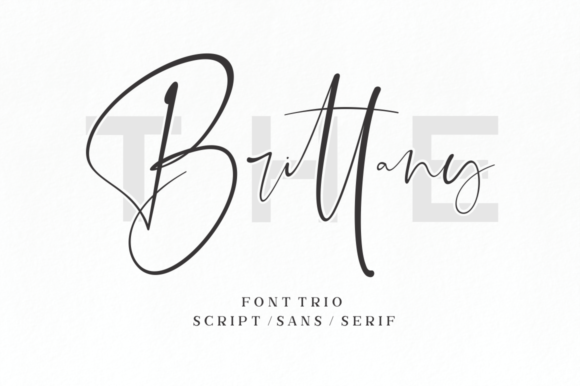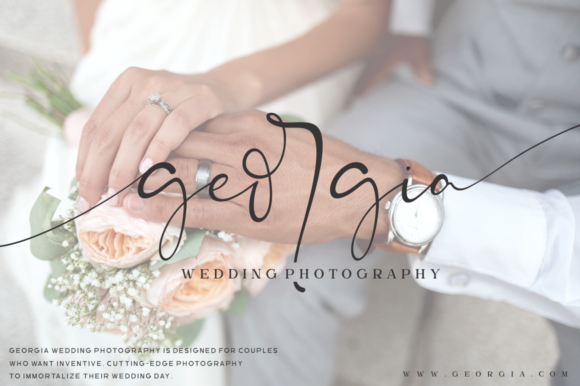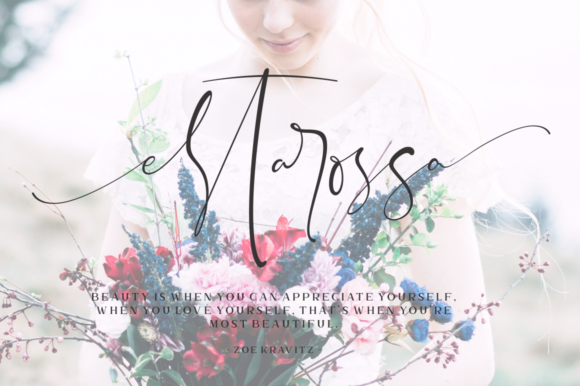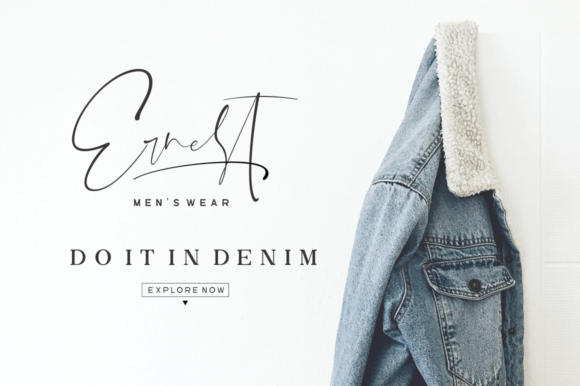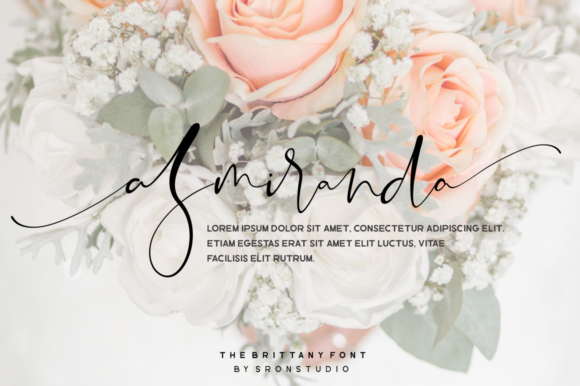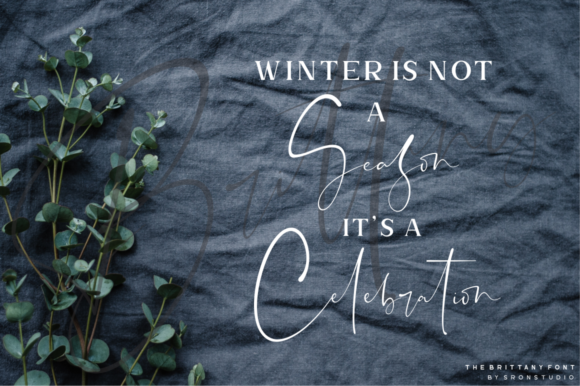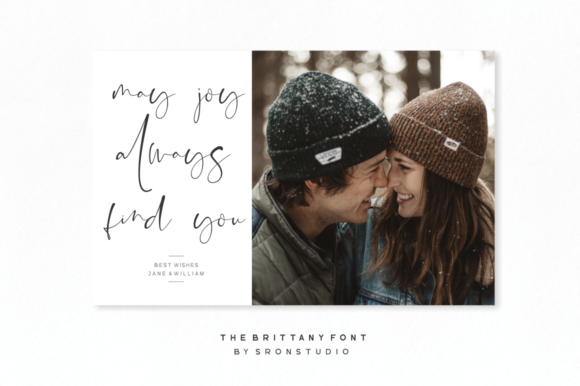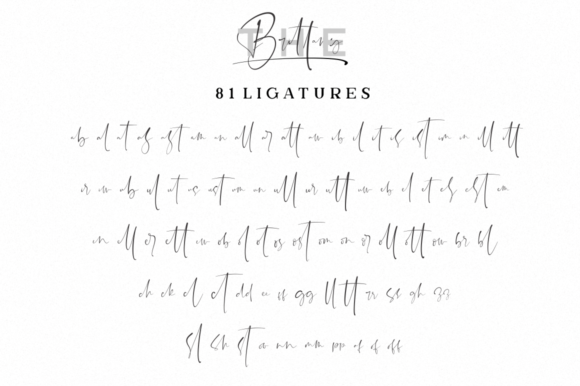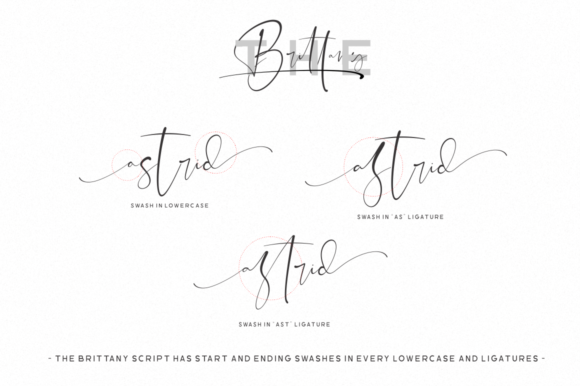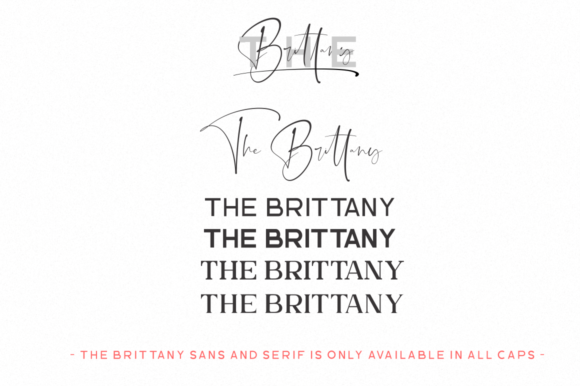
The Brittany Font
About The Brittany Font
The Brittany is an elegant font trio. It comes in 5 styles which can be paired together perfectly!
The Brittany is the great choice for watermarks on photography, signatures, logo designs, quotes, album covers, business cards, and much more!